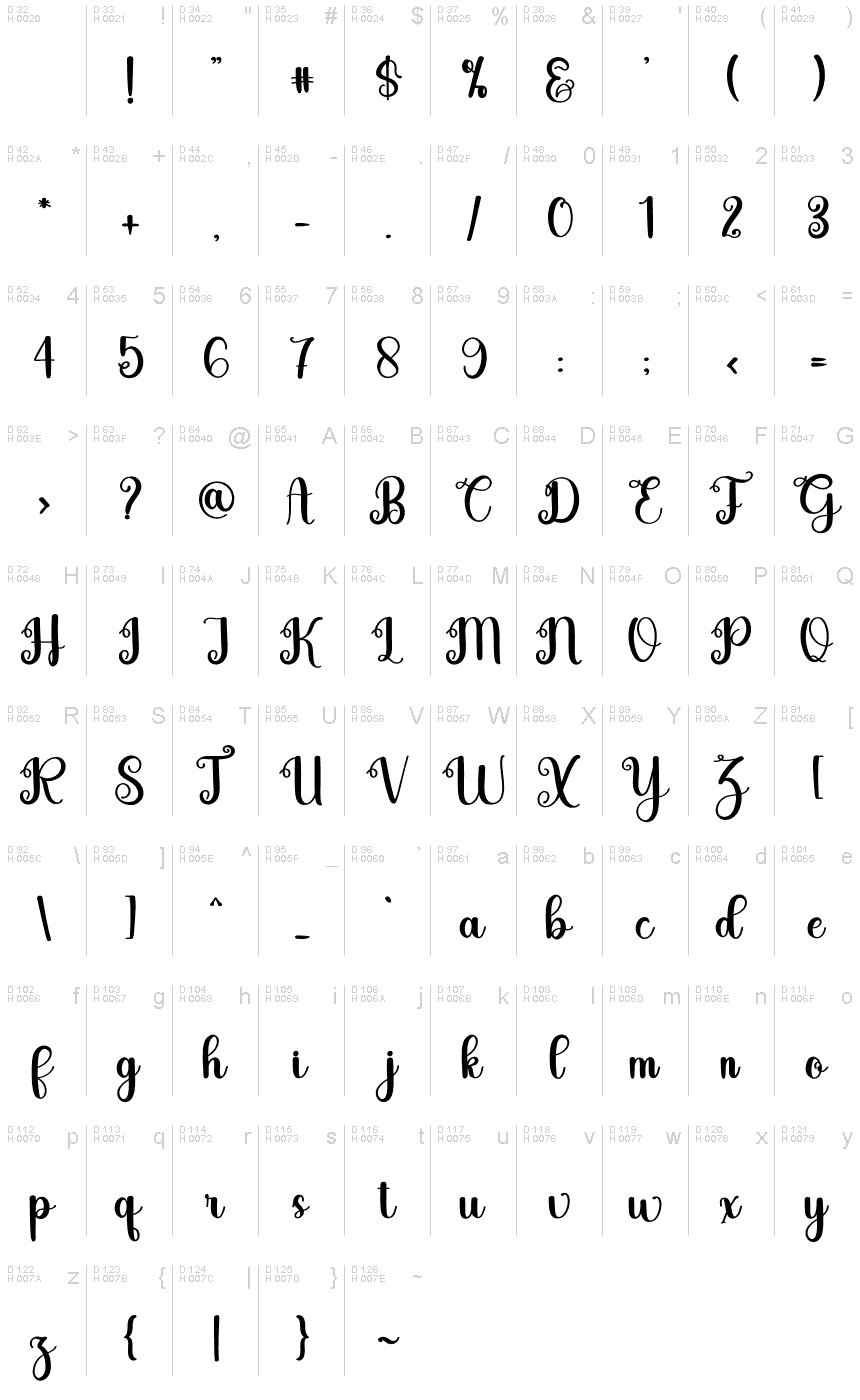
Stay Smile
Introducing Stay Smile, a light and cute calligraphy font designed by Inermedia Studio. Perfect for creating beautiful logos, wedding stationery, invitations and any other project requiring a playful touch.